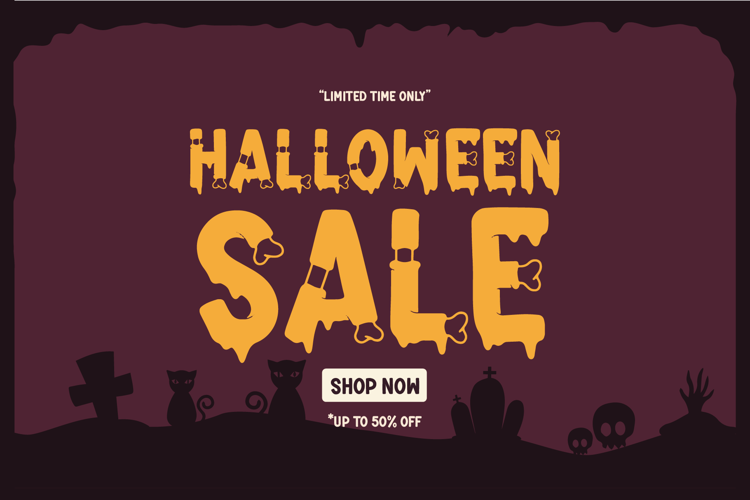
Skeletonic Font
3 font family styles
Bone Regular Style
Plain Regular Style
Skeletonic | Bone Halloween Font product packaging, mugs, quotes, posters, shopping bags, t-shirts, book covers, name card, invitation cards, greeting cards, label, photography, watermark, special events, and all your other lovely projects that need a Halloween font taste.